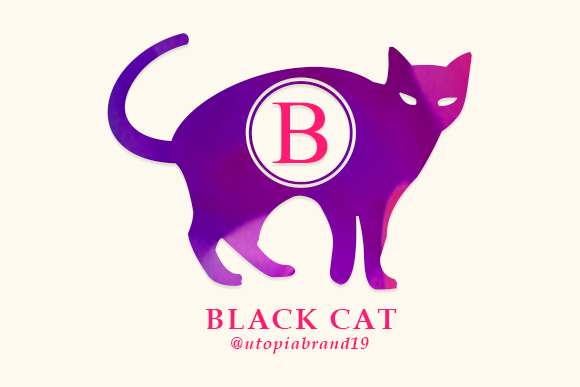
The Purrfect Font: A Deep Dive into Black Cat Font
I’ll never forget the time I was working on a project for a cat cafe, and I just couldn’t find the right font to capture their whimsical and playful vibe. The client wanted something elegant, yet fun and Instagram-worthy. That’s when I stumbled upon the Black Cat Font, and it was love at first sight! 💕
As a designer, I’m always on the lookout for fonts that can help me elevate my work and make it stand out. And, let me tell you, Black Cat Font did not disappoint. In this article, I’ll share my experience with this beautiful font, its features, and how to make the most of it in your designs.
• ✨ Elegant and decorative, perfect for creating gorgeous stationery art, eye-catching social media posts, and cute greeting cards.
• ✅ Lovely cat-themed ornaments that add a touch of whimsy to any design.
• 💕 Authentic feel that will transport your designs to a world of feline charm.
While Black Cat Font is a stunning addition to any design project, there are a few things to keep in mind:
• 🤔 Some of the cat-themed ornaments might be a bit too intricate for very small font sizes.
• ⚠️ As with any decorative font, it might not be the best choice for body text or long blocks of text.
The Designer Inspiration Behind Black Cat Font
According to the font’s creator, Black Cat Font was inspired by the classic elegance of vintage cat posters and the whimsical world of cat cafes. The designer wanted to capture the essence of feline charm and create a font that would make designers go wild. And, judging by the font’s popularity, I’d say they succeeded! 😸
Q: Is Black Cat Font suitable for body text?
A: While Black Cat Font is a beautiful decorative font, it’s not ideal for body text. Its intricate details and cat-themed ornaments make it better suited for headlines, titles, and short blocks of text.